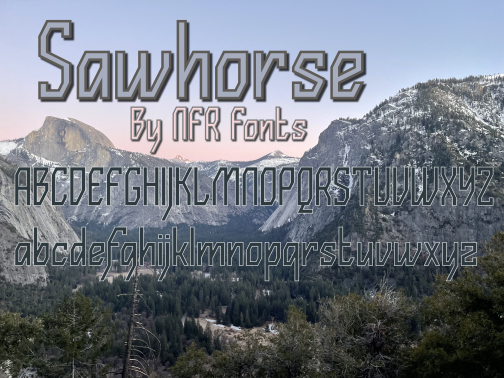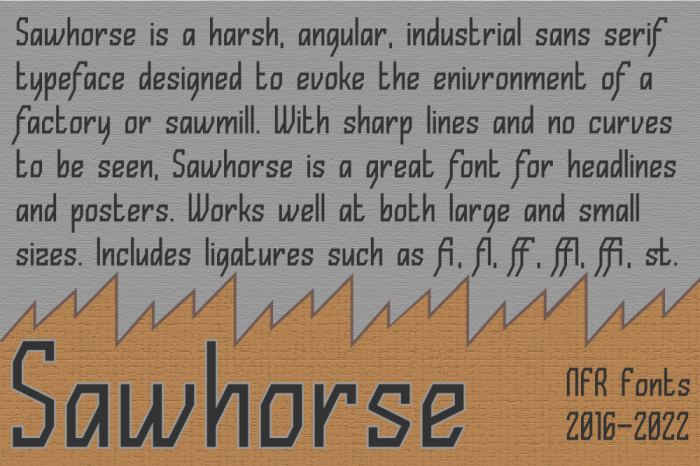
• A stylish slanted font, an old old project from 2016 I decided to finish.
A stylish slanted font, an old old project from 2016 I decided to finish. Been a long time since I was on here, but I figured I would give it a shot. Hope all of you are doing well, I remember having the best of times here when I was a kid. Now that I'm 19 with a full time job in the pool industry and no longer living with my parents I don't have so much free time to make fonts, but recently I got an offer from a design studio to sell fonts on there, so I am gonna try and make some new fonts and improve upon my old designs, since selling fonts was always my dream as a kid :) Hope all of you are doing well, I don't know if any of the people who I used to talk to on here are still active.
I'd love some feedback on this font, this is the first font I have made since 2016 I think and it was based off of a "prototype" font I made in 2016 that only had a, c, e, o, s, u, v, w, m, n and a few others. Not sure if I still have any skills with this, hope I still do :)
Quite a nice design, the angles on the "Q" are particularly eye-catching~
Quick sample. Picture is one I took of the mountains at Yosemite National Park. Thanks for the comments.
Good work. The combination of upright and forward slanting strokes works really well.